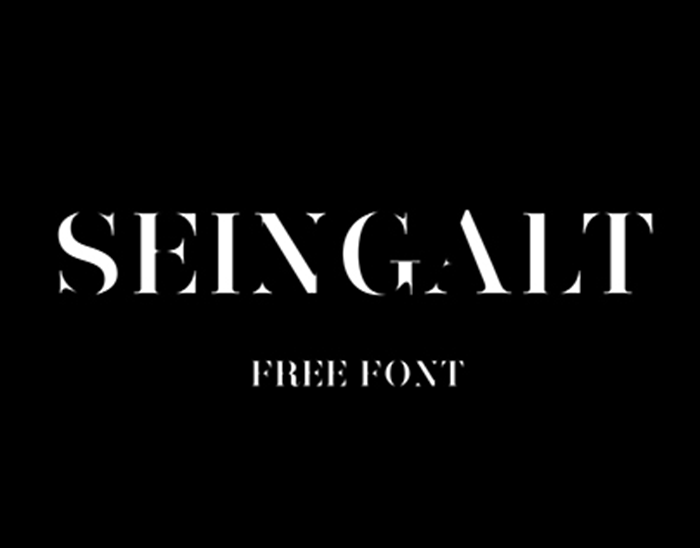
Seingalt Typeface
Introducing a beautiful serif font that makes logo creation easy! Introducing Seingalt Typeface! Seingalt designed by David Massara. Seingalt is a Neo-classical typeface family designed for contemporary typography comprising of 6 styles: Regular, Medium, Bold, Display, Display-Medium, Display-Bold. Available for more than 80 languages. More than 380 characters including uppercase, lowercase, accents, numbers, ligatures, contextual ligatures, punctuations, mathematical, fractions, symbols and currency. An alternative version without stroke is available too.